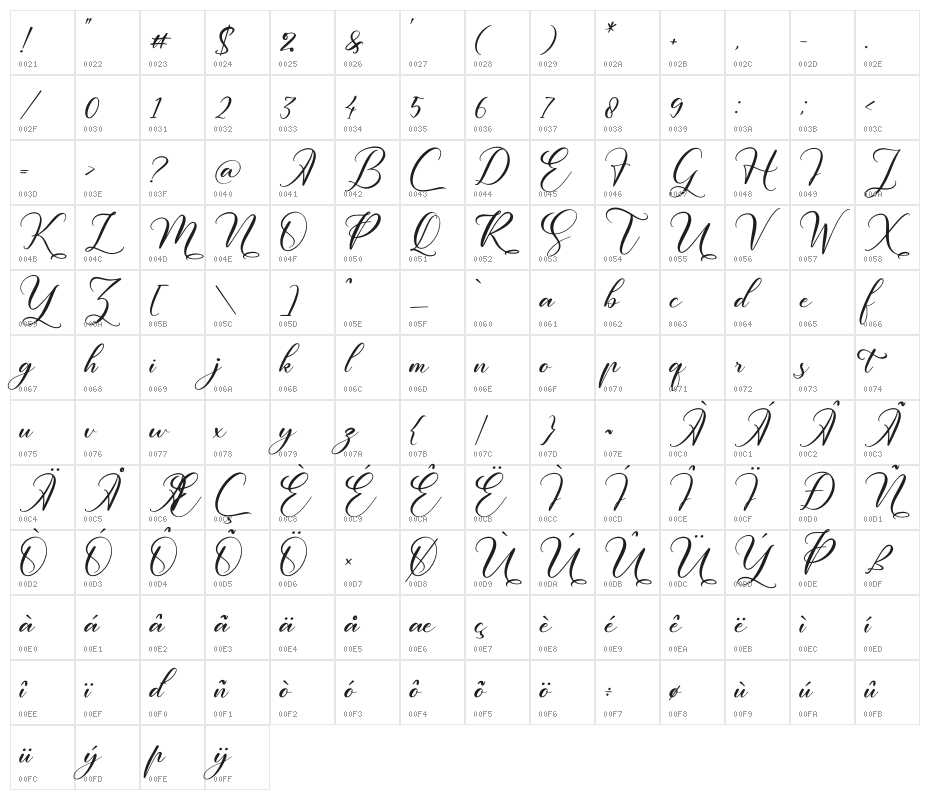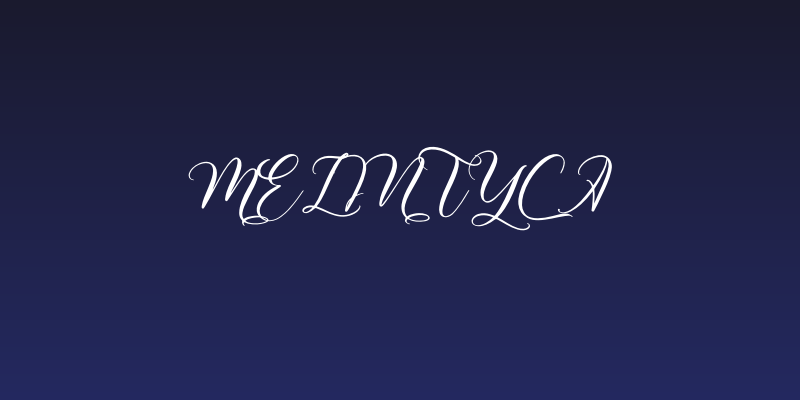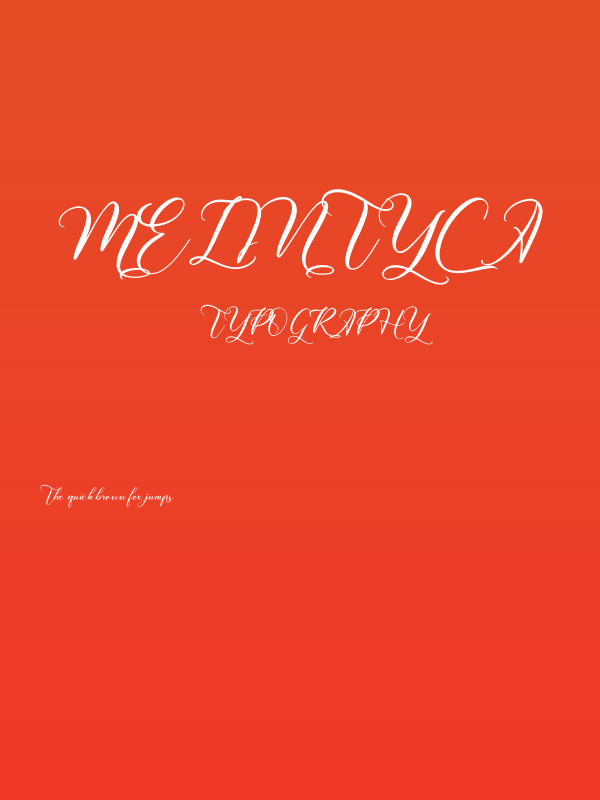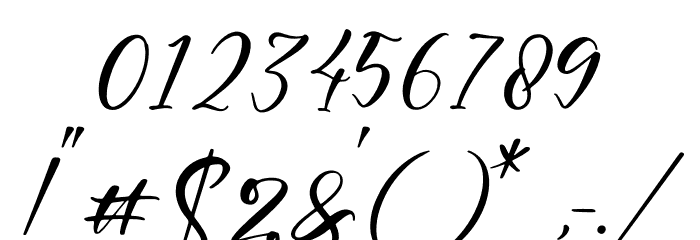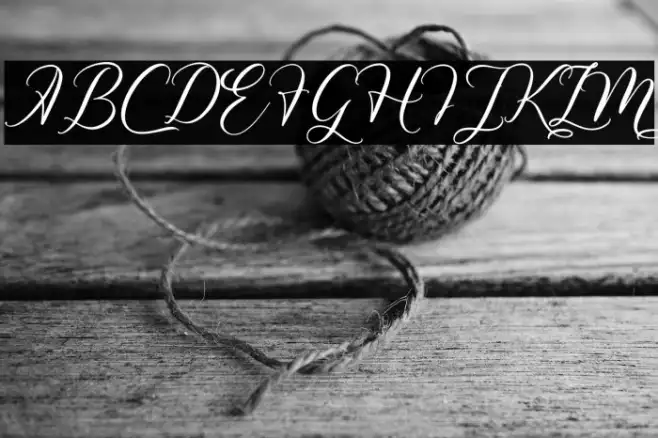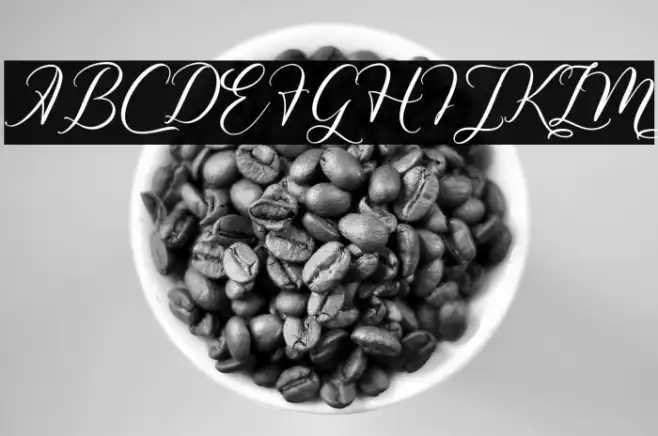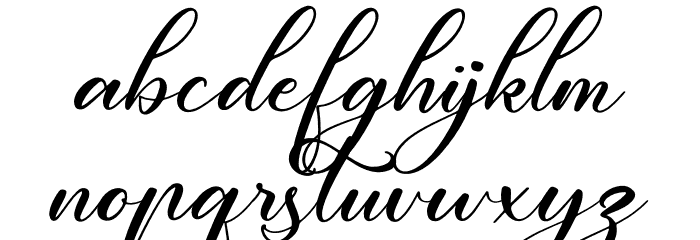
Melintyca Font
Melintyca Description
This elegant script font features a flowing, cursive style with intricate loops and swashes that give it a sophisticated and artistic appearance. The uppercase letters are particularly ornate, with extended flourishes that add a touch of drama and elegance. The lowercase letters maintain a consistent flow, enhancing readability while retaining the decorative charm. The numerals are styled to match the script's fluidity, making them suitable for elegant invitations or formal announcements. Special characters are thoughtfully designed to complement the overall aesthetic, ensuring a cohesive look across all text elements.
| Use Case | Invitations, Branding, Artistic projects |
| Proposed Projects | Ideal for wedding invitations, elegant branding, formal event programs, and artistic projects. |